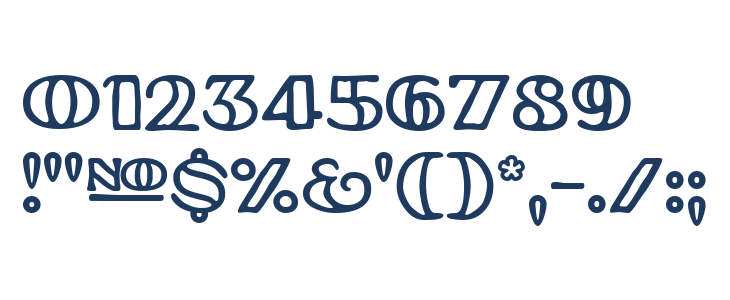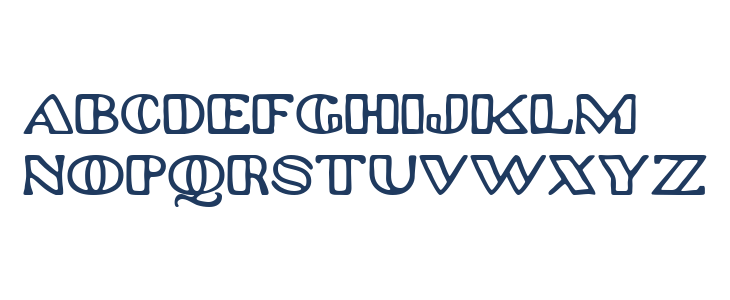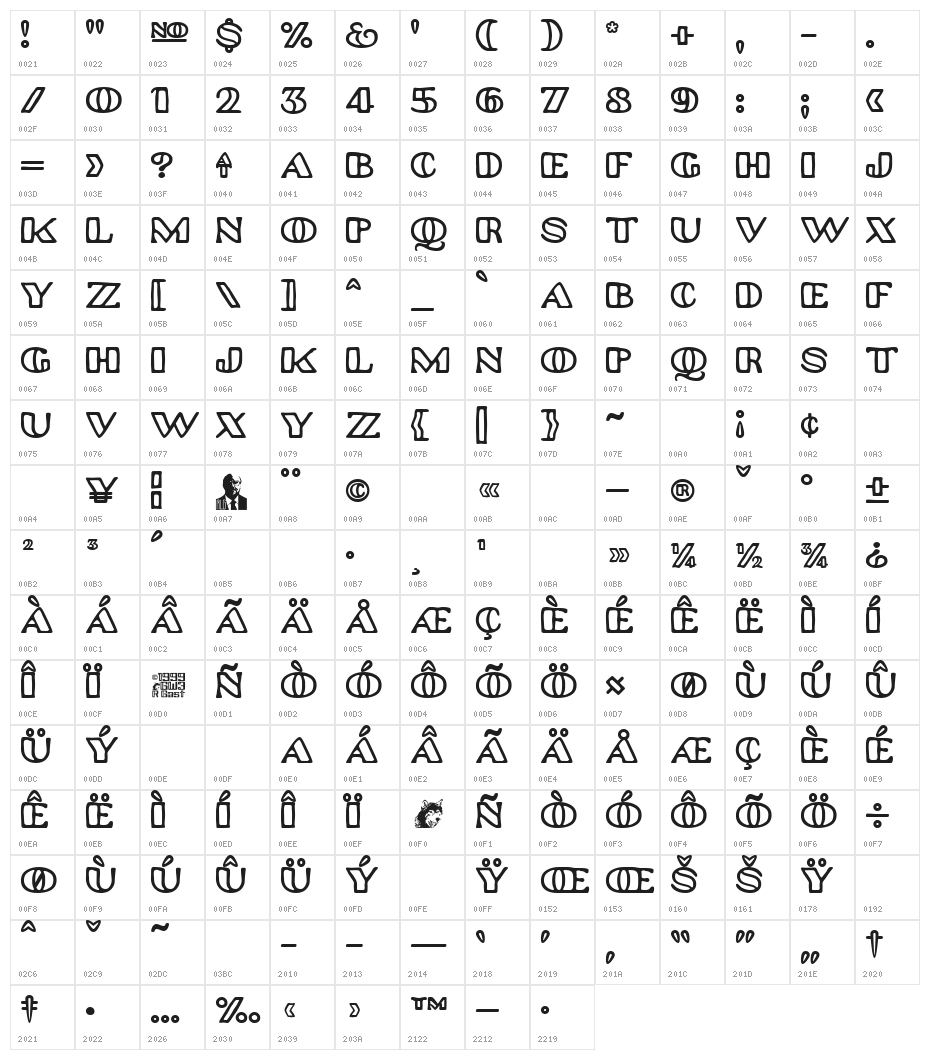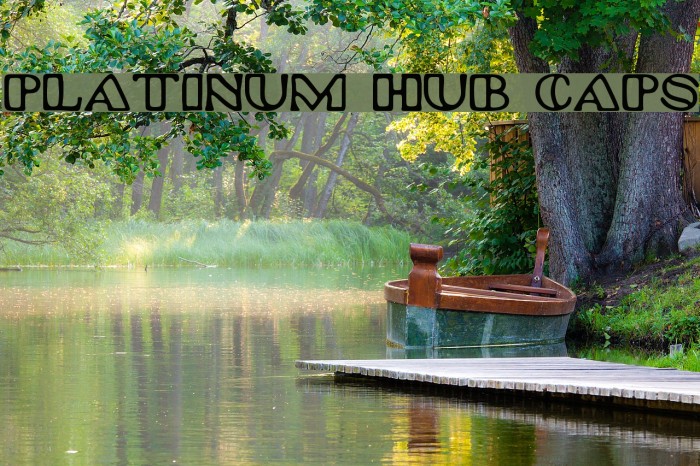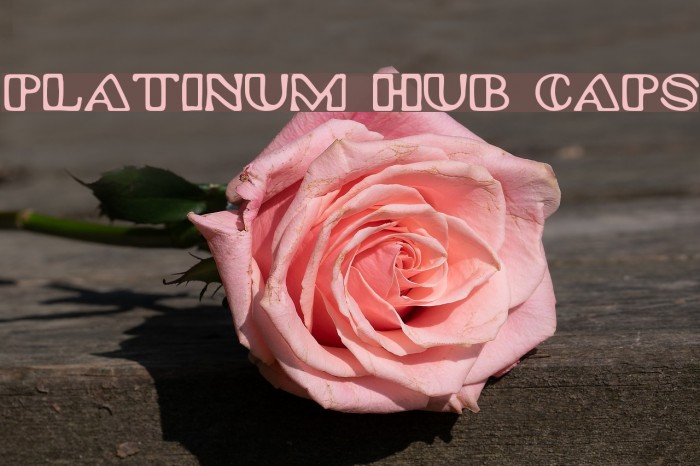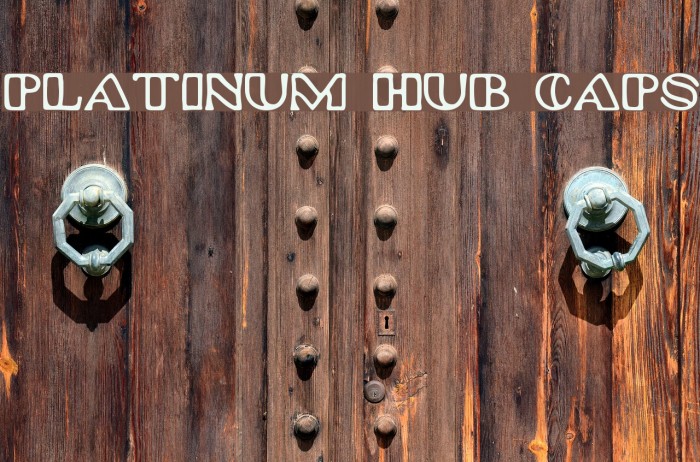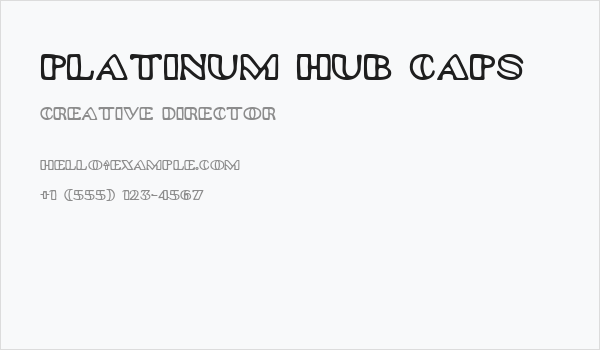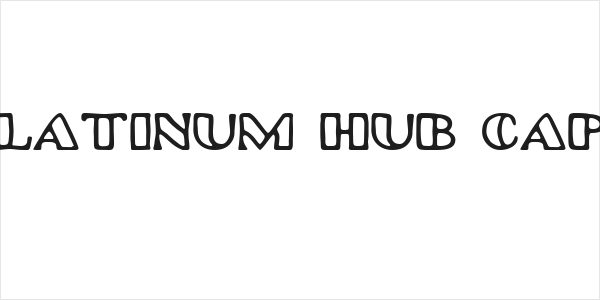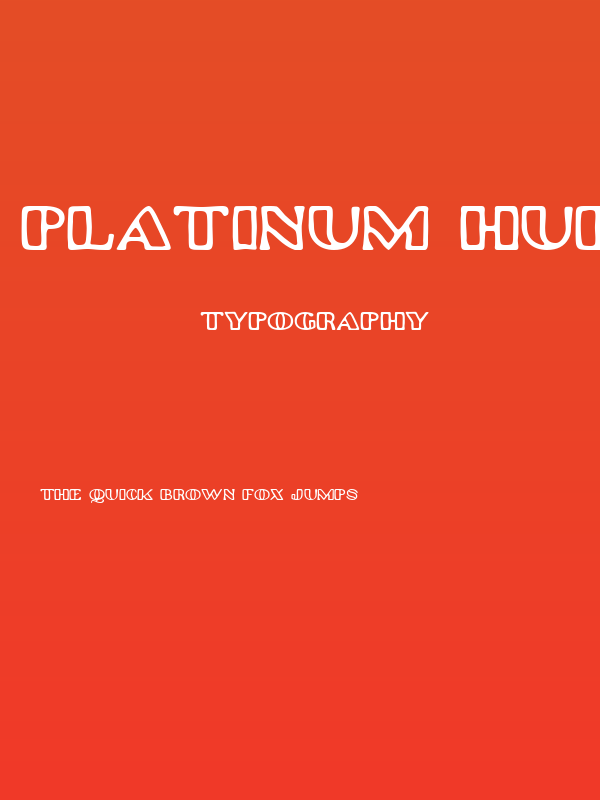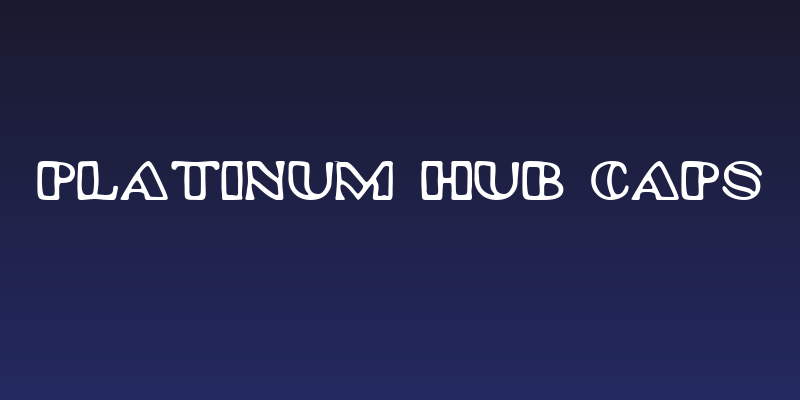
Platinum Hub Caps Font
Platinum Hub Caps Description
This font features a bold and decorative style with a unique blend of modern and vintage elements. The characters are outlined with a thick, consistent stroke, creating a hollow effect that adds depth and dimension. The uppercase letters are particularly striking, with a geometric flair that is both eye-catching and sophisticated. The lowercase letters maintain this aesthetic, ensuring consistency across the typeface. Numbers and special characters are designed with the same attention to detail, making them suitable for a variety of uses. The overall design is both playful and elegant, making it ideal for projects that require a distinctive and memorable typographic presence.
| Overall Style | Modern, Vintage |
| Proposed Projects | Ideal for branding, posters, headlines, and any design needing a standout typographic element. |